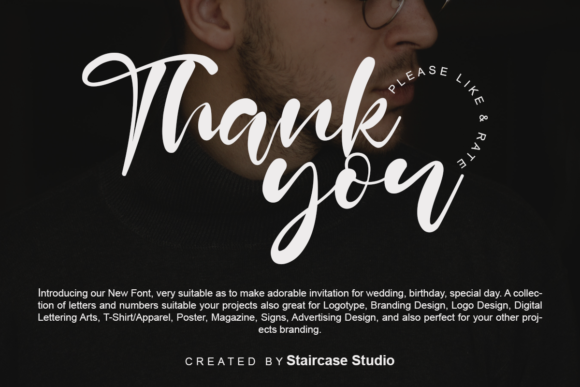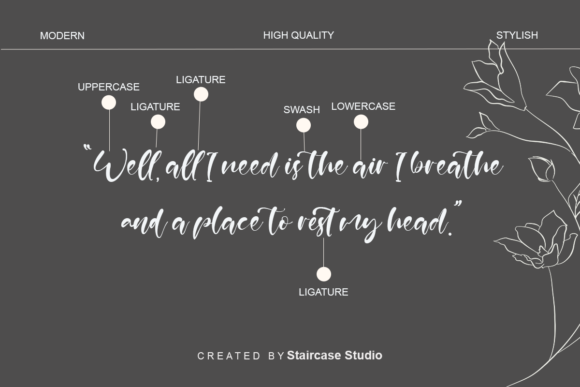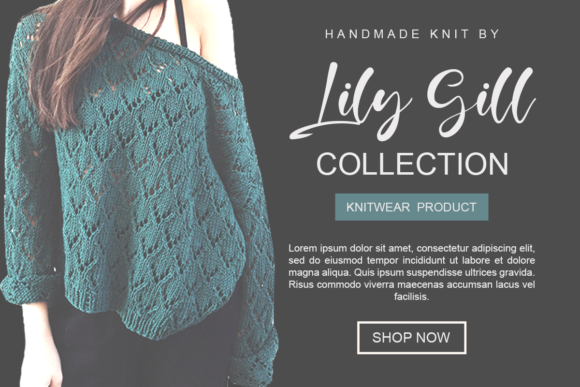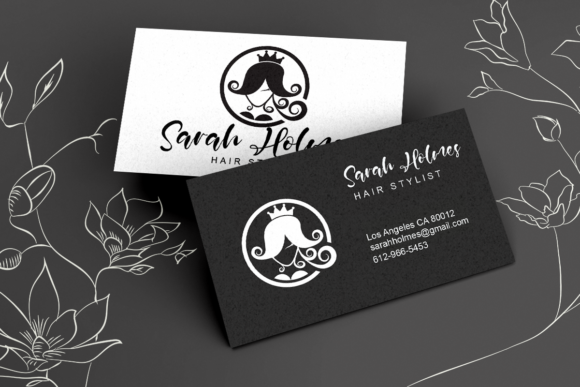
About Febian Script Font
Febian Script is a magical script font carefully created with a touch of elegance. Whether you’re looking for fonts for Instagram or calligraphy scripts for DIY projects, this font will turn any creative idea into a true piece of art!